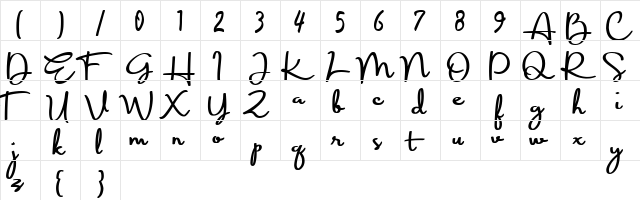
Koofinee Regular
Design Context for Koofinee Typeface
Koofinee is a composed and adaptable typeface that performs quietly and consistently across a wide range of design contexts.